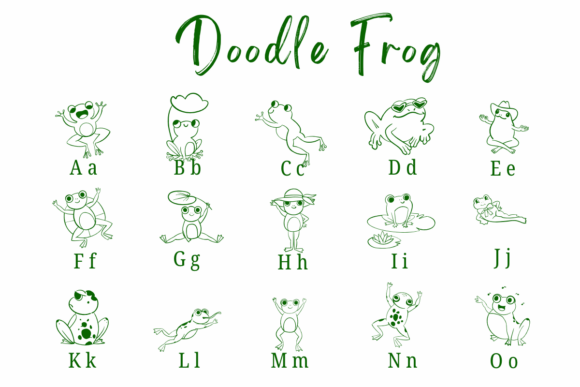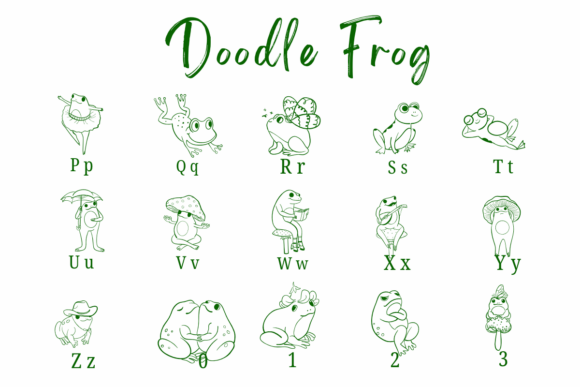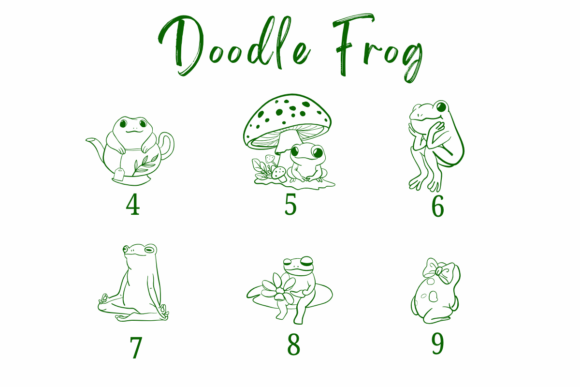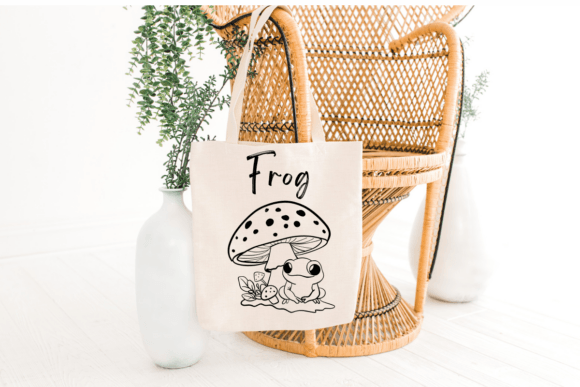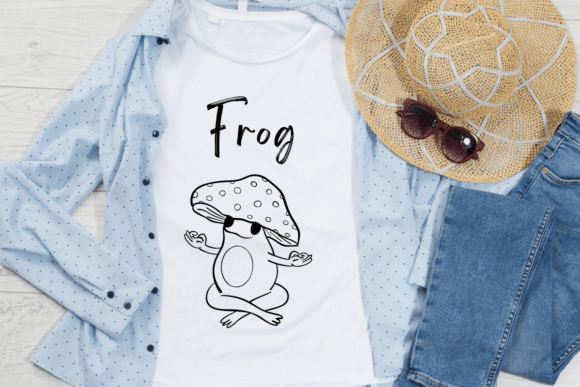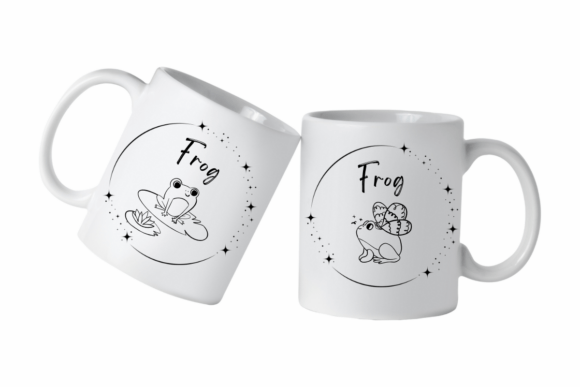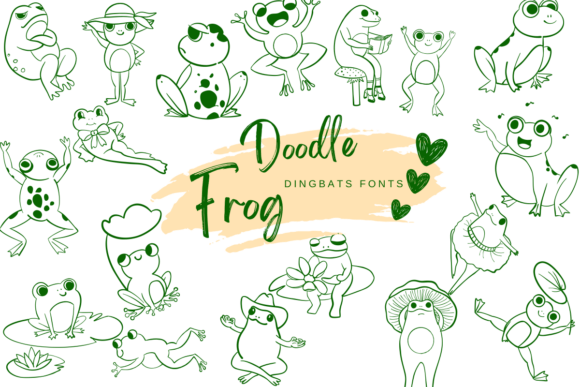
Doodle Frog Font: Unleash Your Creativity with this Whimsical Dingbats Font
Are you a designer, crafter, or DIY enthusiast looking for a unique and playful font to add a personal touch to your creative projects? Look no further than the Doodle Frog Font! This charming dingbats font features a sketched style that is sure to bring a smile to your face and inspire your imagination.
What is Doodle Frog Font?
Doodle Frog Font is a type of dingbats font, which means it features illustrations and symbols rather than traditional alphabet letters. This font is perfect for adding a touch of whimsy and personality to your designs, whether you’re creating wedding invitations, craft tutorials, or social media graphics.
Characteristics of Doodle Frog Font
The Doodle Frog Font has several characteristics that make it stand out from other dingbats fonts:
- Sketched style: The font features a hand-sketched style that gives it a playful and organic feel.
- Illustrative characters: The font includes a range of illustrative characters, including frogs, flowers, and other whimsical symbols.
Uses for Doodle Frog Font
The Doodle Frog Font is incredibly versatile, and can be used for a wide range of creative projects, including:
- Wedding invitations: Add a touch of whimsy and romance to your wedding invitations with this charming font.
- DIY projects: Use the font to create custom labels, tags, and other embellishments for your DIY projects.
- Crafts: The font is perfect for creating handmade cards, gift tags, and other paper crafts.
- Decorations: Use the font to create custom signs, banners, and other decorations for parties and special events.
- Logos: The font can be used to create custom logos for businesses, blogs, and social media profiles.
Tips for Using Doodle Frog Font
Here are a few tips for getting the most out of the Doodle Frog Font:
- Experiment with different colors: The font looks great in a range of colors, so don’t be afraid to experiment and find the perfect hue for your project.
- Mix and match characters: The font includes a range of characters, so try mixing and matching them to create unique and interesting combinations.
- Use it with other fonts: The Doodle Frog Font pairs well with other fonts, so try using it with a bold or script font to add contrast and interest to your design.
The Doodle Frog Font is a fun and versatile dingbats font that is perfect for designers, crafters, and DIY enthusiasts. With its sketched style and illustrative characters, this font is sure to add a touch of whimsy and personality to your creative projects. Whether you’re creating wedding invitations, DIY projects, or social media graphics, the Doodle Frog Font is a great choice.